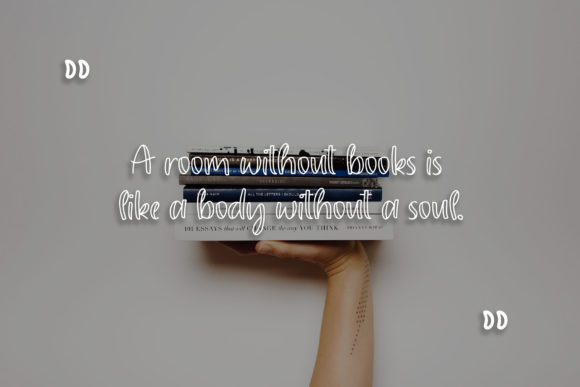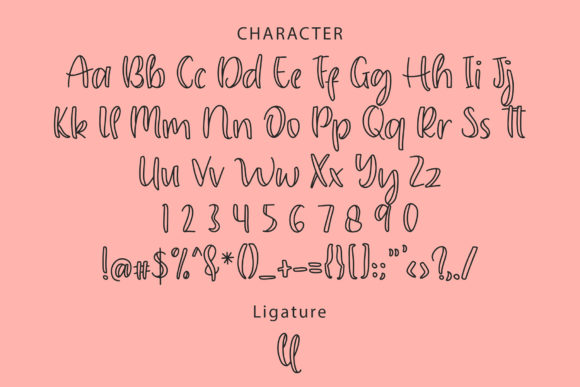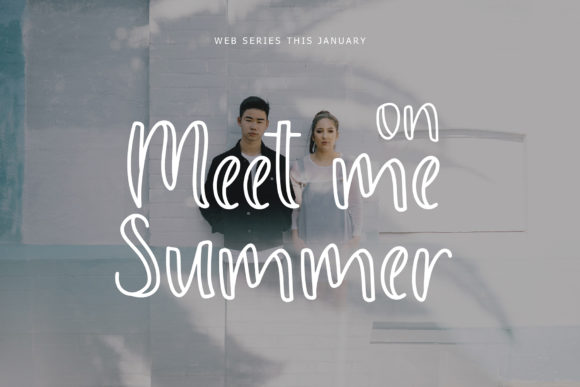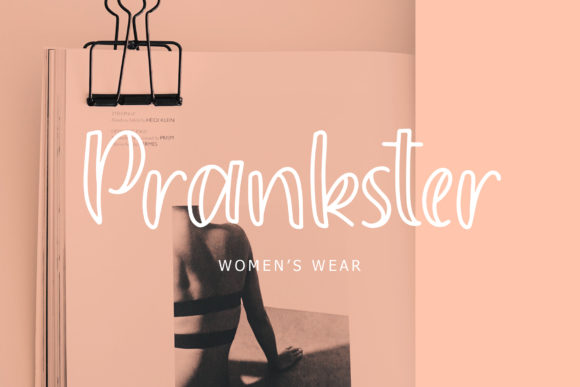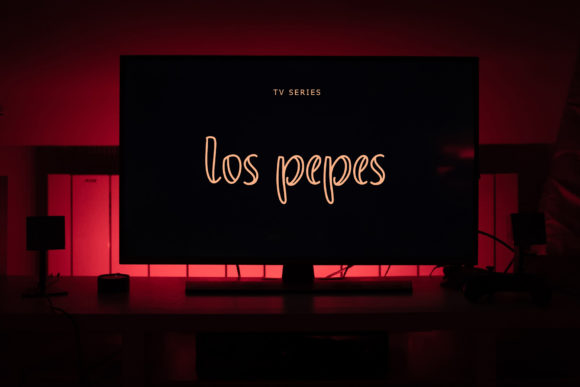
Introducing Blink Rink Font: The Ultimate Friendly Display Font for Creative Projects
Are you a designer, crafter, or DIY enthusiast looking for a font that can add a touch of friendliness and playfulness to your creative projects? Look no further than Blink Rink Font! This adorable display font is perfect for anyone who wants to turn their ideas into a true piece of art. In this article, we’ll dive into the world of Blink Rink Font, exploring its features, benefits, and uses, as well as provide tips on how to make the most of this versatile font.
What is Blink Rink Font?
Blink Rink Font is a cute and casual display font designed to bring a friendly feel to your creative projects. With its unique and playful style, this font is perfect for a wide range of applications, from social media graphics and Instagram posts to calligraphy scripts and DIY projects. Whether you’re a professional designer or a crafty hobbyist, Blink Rink Font is sure to inspire your creativity and help you bring your ideas to life.
Key Features of Blink Rink Font
So, what makes Blink Rink Font so special? Here are some of its key features:
- Cute and Casual Style: Blink Rink Font has a playful and friendly feel that’s perfect for creative projects that require a personal touch.
- Display Font: This font is designed to make a statement, making it ideal for headlines, titles, and other display text.
- Versatile: Blink Rink Font can be used for a wide range of projects, from digital graphics to print materials.
- Easy to Read: Despite its playful style, Blink Rink Font is easy to read, making it perfect for body text as well as display text.
Uses for Blink Rink Font
Blink Rink Font is a versatile font that can be used for a wide range of creative projects. Here are some ideas to get you started:
- Social Media Graphics: Use Blink Rink Font to create eye-catching social media graphics, including Instagram posts, Facebook headers, and Twitter graphics.
- DIY Projects: Add a personal touch to your DIY projects, such as handmade cards, gift tags, and scrapbook pages.
- Calligraphy Scripts: Use Blink Rink Font as a starting point for your calligraphy scripts, adding a touch of elegance and sophistication to your writing.
- Branding and Packaging: Use Blink Rink Font to create a unique and memorable brand identity, including logos, packaging, and labels.
Tips for Using Blink Rink Font
In conclusion, Blink Rink Font is a versatile and adorable display font that’s perfect for designers, crafters, and DIY enthusiasts. With its friendly feel and playful style, this font is sure to inspire your creativity and help you bring your ideas to life. Whether you’re looking for a font for social media graphics, calligraphy scripts, or DIY projects, Blink Rink Font is a great choice. So why not give it a try and see what amazing creative projects you can come up with?